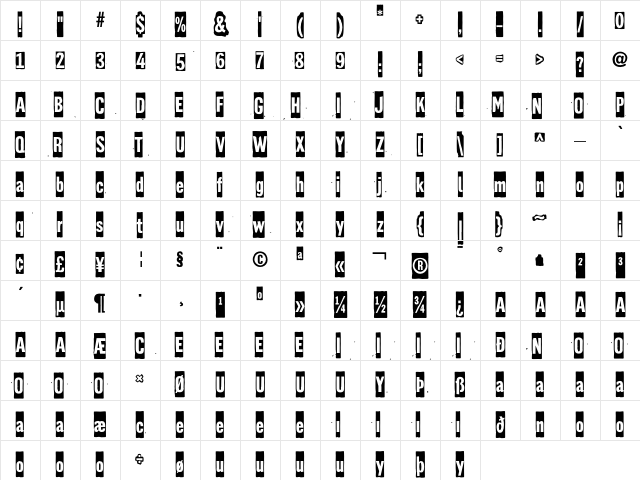
Gazz Paint Free Font
Gazz Paint
Style: Paint
Gazz Family
Gazz Paint
Design Context for Gazz
Gazz is a composed and adaptable typeface that performs quietly and consistently across a wide range of design contexts.